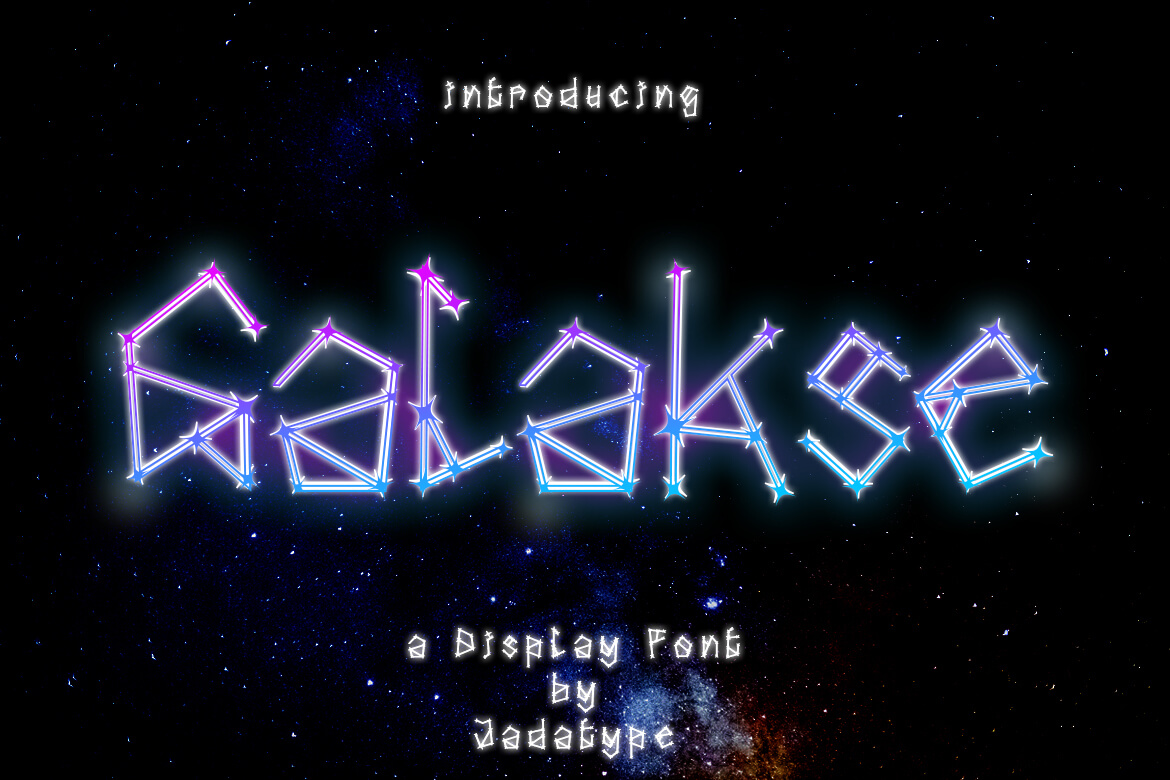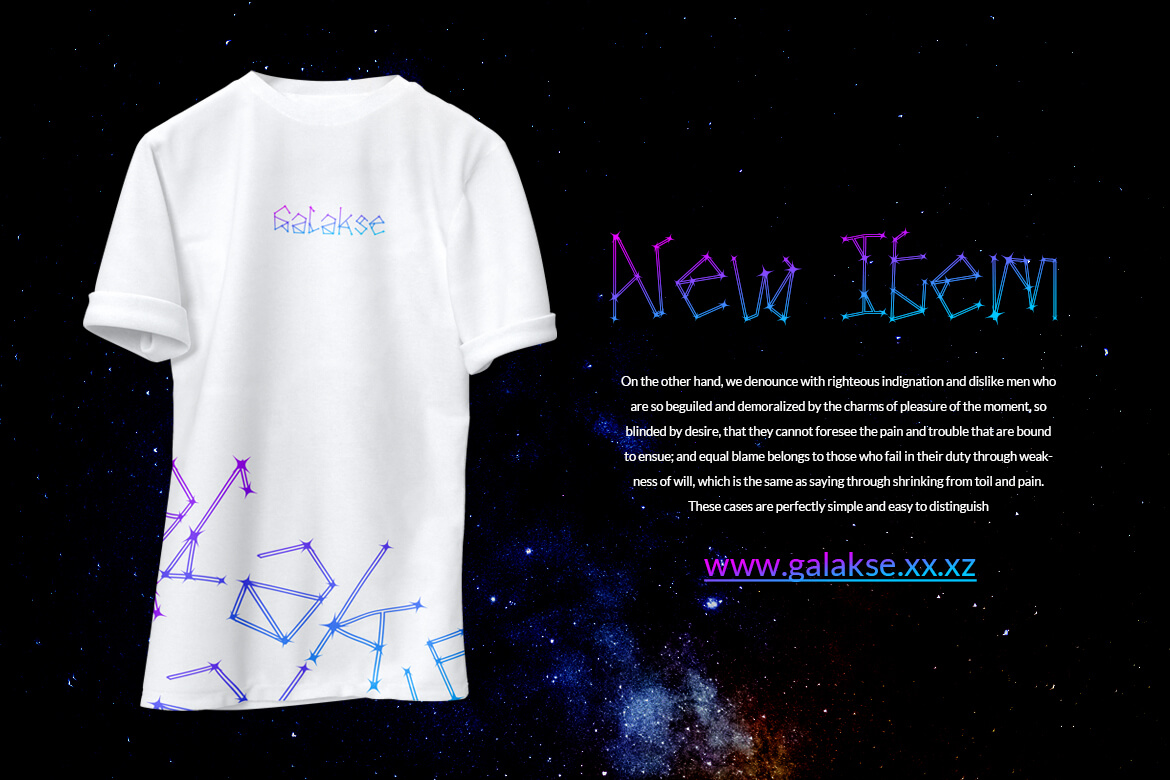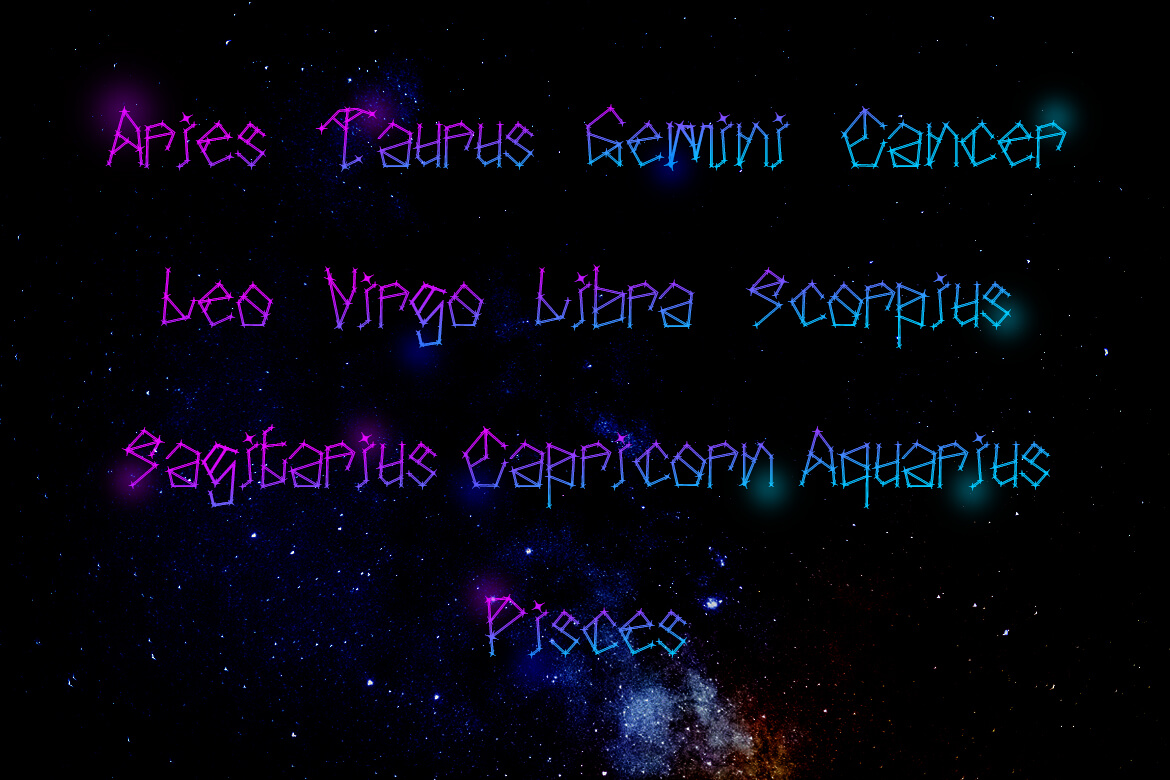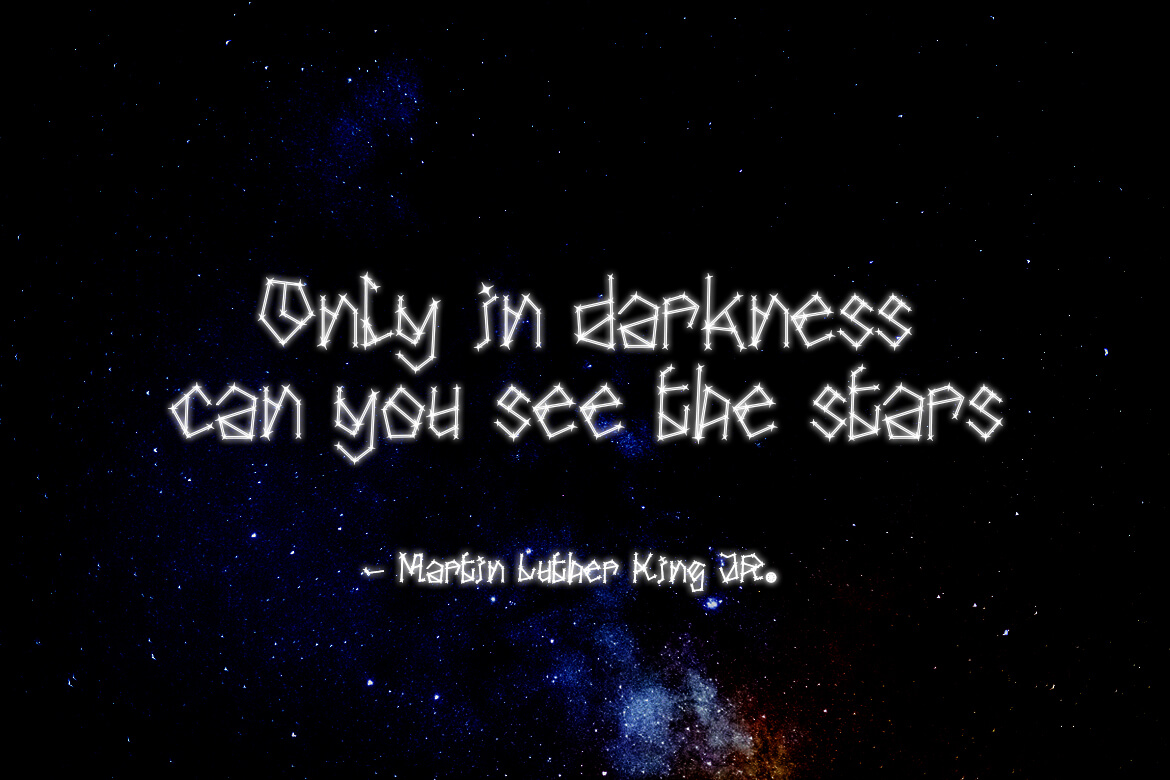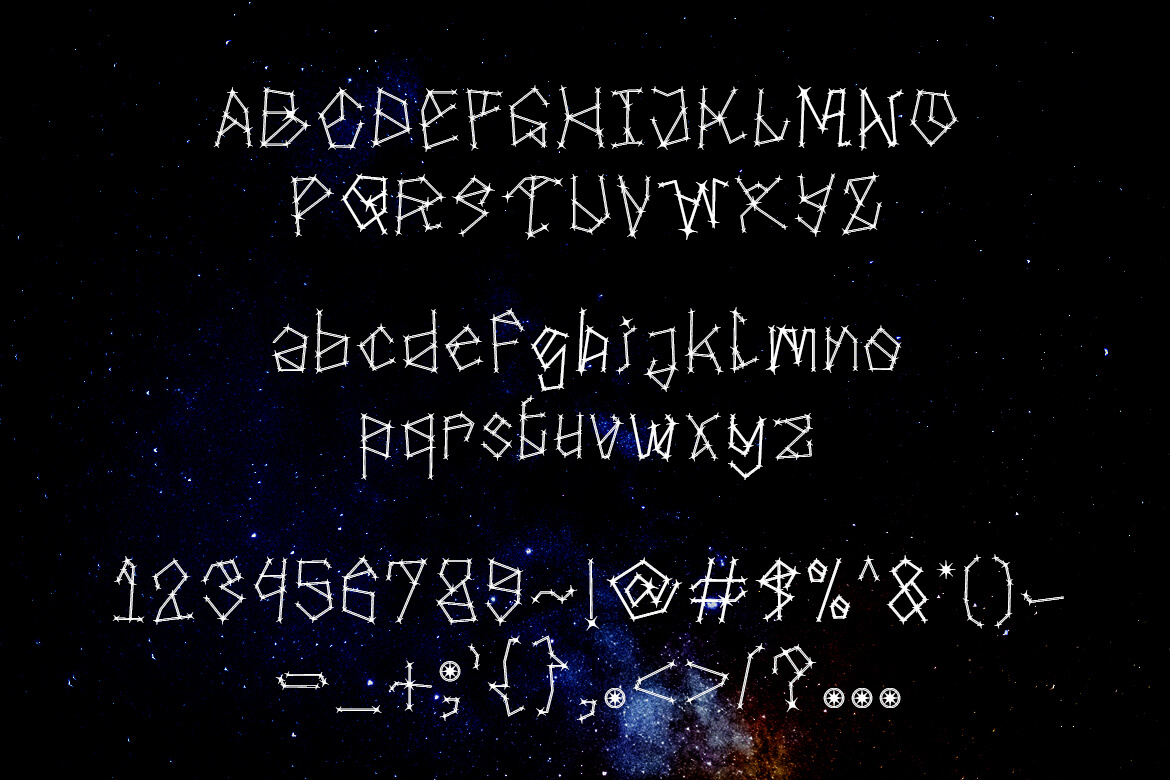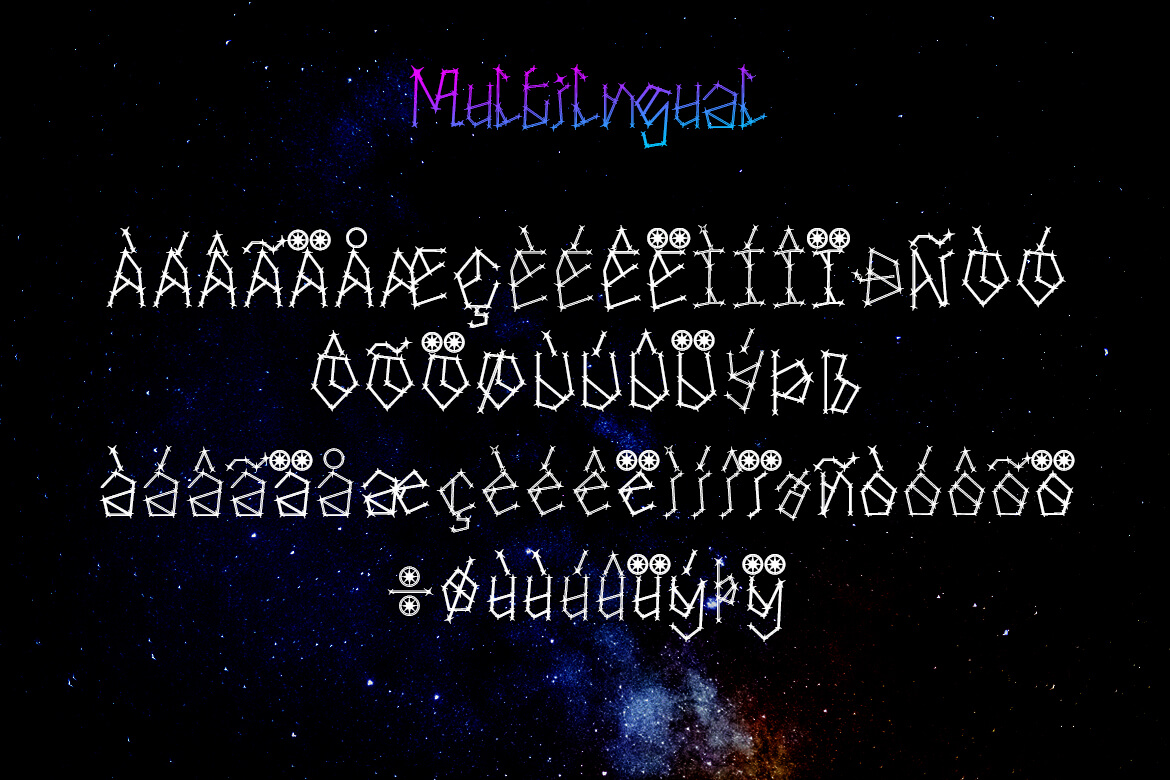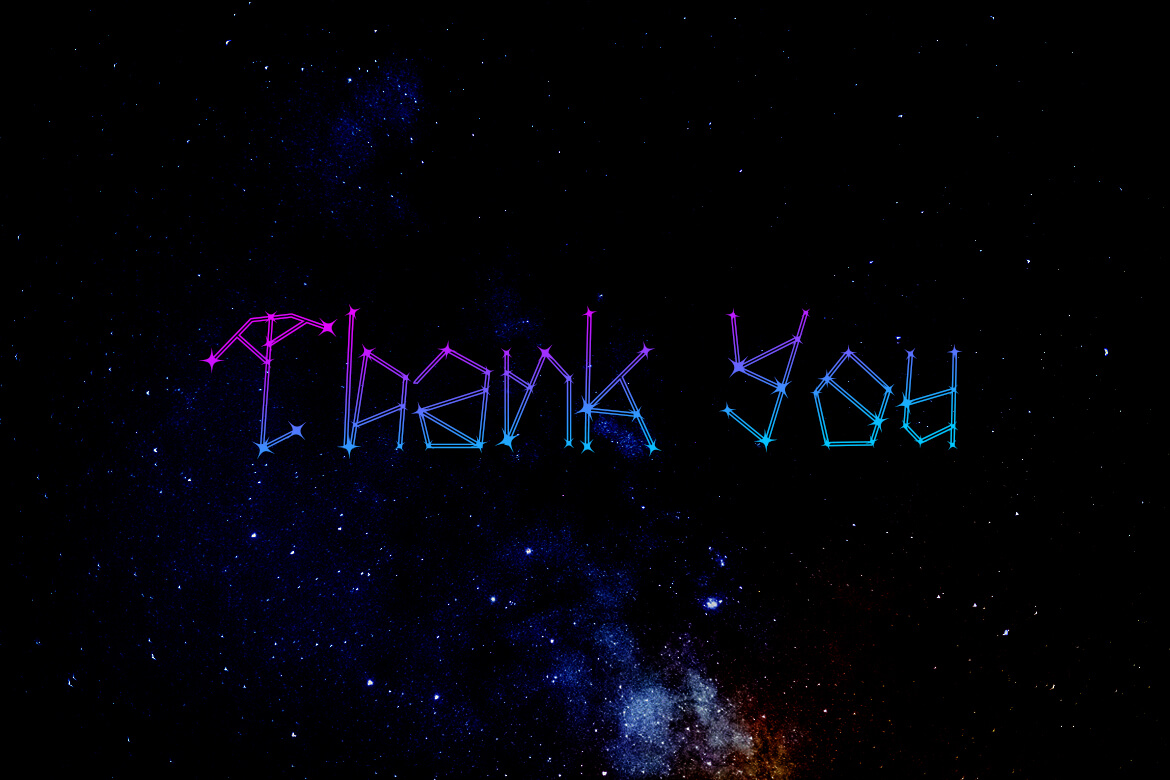
galakse display font
Galakse
Galakse is a font that features bright constellations. It gives the impression of a happy, playful, and outer space. You can use this font as a companion to your design, branding, product, t-shirt design, social media design, and others.
Galakse – Constellation Display Font